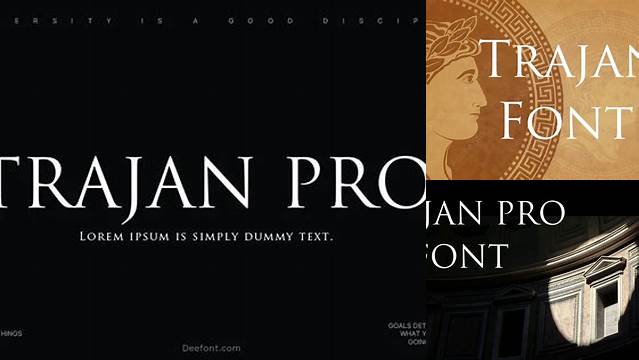
Free Trajan Font: History, Uses, And Alternatives
Hey guys! Ever stumbled upon a font that just screams classic and timeless? Well, chances are you've come across Trajan! This font, with its elegant and authoritative letterforms, has been a staple in the design world for decades. But what's the story behind it? Where can you use it effectively? And what are some cool alternatives if you're looking for something a little different? Let's dive in and explore the world of Trajan!
What is Trajan Font?
Trajan font, guys, is more than just a typeface; it's a piece of history! Inspired by the letterforms inscribed on the base of Trajan's Column in Rome, this font embodies the grandeur and sophistication of ancient Roman inscriptions. Carol Twombly, a talented type designer at Adobe, created Trajan in 1989. Her goal was to capture the essence of those monumental Roman capitals, and boy, did she succeed! The result is a typeface that exudes authority, elegance, and a timeless quality that makes it perfect for projects needing a touch of classical flair.
When you look at Trajan, you immediately notice its distinctive features. The characters are all capitals, which gives the font its imposing and formal character. The serifs are sharp and prominent, adding to the font's overall elegance and readability. The proportions of the letters are carefully balanced, reflecting the meticulous craftsmanship of the original Roman inscriptions. Trajan's unique blend of historical inspiration and modern design makes it a favorite among designers for a wide range of applications. It's no wonder you see Trajan used extensively in movie posters, book covers, and high-end branding materials. The font’s inherent sophistication and classic appeal can instantly elevate the aesthetic of any project, making it a go-to choice for designers looking to make a strong visual impact. Understanding the history and characteristics of Trajan is crucial for appreciating its impact and using it effectively in your designs. Let’s move on to exploring how this remarkable font is used in various design contexts.
The History and Inspiration Behind Trajan
Okay, so you're probably wondering, where does Trajan font come from? Well, as I mentioned earlier, it all started with Trajan's Column in Rome. This massive monument, erected in 113 AD, commemorates Emperor Trajan's victory in the Dacian Wars. But it's not just the military victory that's significant; the column's base features exquisitely carved Roman capitals that have served as a font of inspiration for designers for centuries. Carol Twombly, in her genius, decided to translate these ancient letterforms into a digital typeface, and that's how Trajan was born. She meticulously studied the proportions, serifs, and overall aesthetic of the Roman capitals, ensuring that her digital creation captured the same sense of grandeur and authority. The historical accuracy and artistic interpretation in Trajan’s design are what give the font its unique character and lasting appeal. Imagine the dedication it took to pore over these ancient inscriptions, understanding the nuances of each stroke and curve. Twombly’s work is a testament to the power of historical inspiration in modern design. By understanding the historical roots of Trajan, designers can better appreciate its significance and use it more effectively in their projects. The font doesn't just look good; it carries with it the weight of history, adding a layer of depth and meaning to any design in which it is used.
The connection to Roman history gives Trajan a unique gravitas. When you use Trajan in your designs, you're not just choosing a font; you're invoking the spirit of ancient Rome, with its connotations of power, elegance, and lasting legacy. This makes Trajan particularly well-suited for projects that aim to convey a sense of importance, tradition, or timelessness. Think about those epic movie posters or the dignified branding of a prestigious institution – Trajan often plays a starring role, lending its historical weight to the visual message. So, the next time you see Trajan, remember it's not just a set of letters; it's a link to the past, a carefully crafted echo of one of history's greatest empires. This rich heritage is part of what makes Trajan so special and why it continues to be a beloved choice for designers around the world. Now, let's explore how this historical inspiration translates into practical applications in modern design.
Common Uses of Trajan Font
So, where do you typically see Trajan font in action? Guys, this font is a workhorse in the design world, especially when a touch of class and authority is needed. One of the most common applications is in movie posters. Think about those epic, dramatic film titles – chances are, you've seen Trajan lending its gravitas to the visuals. The font's strong, capital letters and elegant serifs make it perfect for conveying a sense of importance and scale, crucial for capturing the essence of a blockbuster movie.
Beyond movie posters, Trajan is a popular choice for book covers, especially in genres like historical fiction, classics, and non-fiction works dealing with history or philosophy. The font's classical roots make it a natural fit for these types of books, lending an air of authenticity and intellectual weight. Imagine a novel set in ancient Rome – what better font to adorn the cover than Trajan? The same goes for a biography of a historical figure or a philosophical treatise; Trajan instantly signals a connection to the past and a seriousness of purpose.
But Trajan's appeal isn't limited to the entertainment and publishing industries. You'll also find it used extensively in branding and corporate identity, particularly for high-end brands and institutions. Think about law firms, museums, universities, and luxury goods companies – these are all contexts where Trajan's air of sophistication and authority can be a valuable asset. The font helps to convey a sense of tradition, stability, and prestige, qualities that are essential for building trust and credibility with clients and customers. Whether it's a logo, a website, or marketing materials, Trajan can elevate a brand's image and communicate a message of quality and excellence. The key is to use it judiciously, ensuring that it aligns with the overall brand identity and the specific message being conveyed. In essence, Trajan is a versatile font that can be used across various platforms to enhance visual communication and create a lasting impression. Next, let's explore some alternative fonts that can provide a similar feel to Trajan, offering more options for your design projects.
Free Alternatives to Trajan Font
Okay, so what if you love the look of Trajan but need a free alternative? No worries, guys, there are some great options out there! Trajan, while fantastic, is a premium font, so it might not always fit the budget. But fear not, because the world of typography is full of talented designers who have created similar fonts that you can use for free, especially for personal or non-profit projects. Finding the perfect substitute can be a fun exploration of different typefaces, allowing you to discover new favorites and expand your design toolkit. The key is to look for fonts that share Trajan's core characteristics: strong capital letters, elegant serifs, and a sense of historical inspiration. While no font can perfectly replicate Trajan's unique character, these alternatives come pretty darn close, offering a similar aesthetic appeal without the price tag.
One excellent free alternative is Forum. This font shares Trajan's classical proportions and elegant serifs, making it a solid choice for headlines and display text. Forum exudes a similar sense of authority and timelessness, making it ideal for projects where you want to convey a sense of history or tradition. Another great option is ** высоким (Vysokym)**, a typeface that captures the essence of Roman capitals with a modern twist. Vysokym’s clean lines and sharp serifs give it a contemporary edge, while still retaining the classical feel of Trajan. It’s particularly well-suited for branding and corporate identity projects, where you want to project a sense of sophistication and professionalism. Crimson Text is also a great option. While it includes lowercase letters (which Trajan lacks), its uppercase characters have a similar feel to Trajan, and it’s a very versatile font for both body text and headlines. Crimson Text's refined serifs and balanced proportions make it a suitable choice for projects requiring a touch of elegance and readability. All these alternatives offer a unique twist on the Trajan aesthetic, allowing you to achieve a similar visual impact while staying within budget. By exploring these options, you can find the perfect font to complement your design vision and enhance the overall look and feel of your projects. Let's delve further into why selecting the right font alternatives is so important for your design needs.
Why Choosing the Right Font Alternative Matters
Guys, choosing the right font alternative is super important for a few reasons. First off, it's about making sure your design looks and feels the way you want it to. You want to capture the essence of Trajan – that classic, authoritative vibe – without actually using Trajan. This means finding a font that has similar characteristics, like strong serifs and elegant letterforms. Think of it like finding the perfect actor to play a role; they need to embody the character's spirit, even if they're not a carbon copy. A well-chosen font alternative can evoke the same emotional response and visual impact as Trajan, ensuring that your message is communicated effectively.
Secondly, it's about maintaining consistency in your designs. If you're working on a project with a specific aesthetic, you want to make sure every element contributes to that aesthetic. Using a font that clashes with the overall style can disrupt the visual harmony and detract from the message. For example, if you're designing a book cover for a historical novel, you wouldn't want to use a modern, sans-serif font; it would feel out of place. A font alternative that closely resembles Trajan will help maintain the desired tone and ensure that your design looks cohesive and professional. This consistency is crucial for creating a strong brand identity and establishing a recognizable visual style. When all elements of your design work together seamlessly, the overall impact is much more powerful and memorable. Thus, careful selection of font alternatives ensures that your design aligns with your intended vision and resonates with your target audience. Let’s now consider some specific criteria to keep in mind when selecting font alternatives.
Key Criteria for Selecting Font Alternatives
When you're on the hunt for a Trajan alternative, there are a few key things to keep in mind, guys. First up, look at the serifs. Serifs are those little decorative strokes at the ends of the letters, and they're a big part of what gives Trajan its elegant, classical feel. You'll want to find a font with similar serifs – sharp and well-defined – to capture that same vibe. The serifs are a crucial element in conveying the formality and sophistication associated with Trajan, so pay close attention to their shape and size. A well-crafted serif can significantly enhance the readability and visual appeal of the font, making it a suitable alternative for projects where Trajan might typically be used.
Next, consider the proportions of the letters. Trajan has a very specific look, with its tall, stately capitals. You want an alternative that has similar proportions, so the letters don't look too squat or too stretched. The height and width of the letters, as well as the spacing between them, contribute to the overall legibility and aesthetic balance of the font. A font with well-proportioned characters will ensure that your text is easy to read and visually pleasing, even at different sizes. This is particularly important for headlines and display text, where the font needs to make a strong statement without sacrificing clarity. Additionally, think about the overall tone. Trajan is authoritative and timeless, so you want an alternative that conveys a similar feeling. A font that's too playful or modern might not be the right fit. The tone of the font should align with the message you're trying to communicate and the overall style of your design. This alignment is crucial for creating a cohesive and impactful visual presentation that resonates with your audience. By carefully considering these criteria, you can narrow down your options and find a font alternative that effectively captures the essence of Trajan while meeting your specific design needs.
So, there you have it, guys! We've explored the fascinating world of Trajan font, from its historical roots to its modern-day applications. We've also looked at some fantastic free alternatives that can help you achieve a similar look without breaking the bank. Whether you're working on a movie poster, a book cover, or a branding project, understanding the nuances of Trajan and its alternatives will empower you to make informed design choices. Remember, the right font can elevate your work and communicate your message with clarity and style. Happy designing!
FAQ Section
What makes Trajan font unique?
Trajan font is unique due to its historical inspiration, deriving from the letterforms inscribed on Trajan's Column in Rome. This gives it a timeless, authoritative, and elegant character, making it suitable for projects that require a classic touch.
Is Trajan font suitable for body text?
No, Trajan font is not ideal for body text because it is an all-caps font. It is best used for headlines, titles, and display purposes where its strong, elegant letterforms can make a significant impact.
Can I use Trajan font for commercial projects?
Trajan is a commercial font, so you need to purchase a license to use it for commercial projects. However, there are free alternatives available that offer a similar aesthetic for projects with budget constraints.
What are some common pairings for Trajan font?
Trajan pairs well with classic serif fonts like Garamond or Times New Roman for body text. For a modern contrast, it can also be paired with clean sans-serif fonts such as Helvetica or Arial.
How can I achieve a similar look to Trajan without using the actual font?
You can achieve a similar look to Trajan by using free alternatives like Forum, Vysokym, or Crimson Text. These fonts share Trajan's classical proportions, elegant serifs, and authoritative feel.